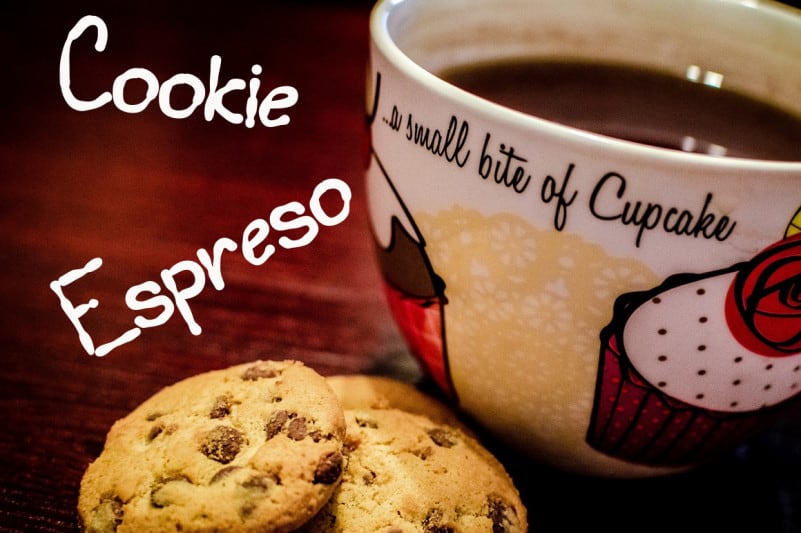
Chocholate Display Font
Chocholate Display Font is a cool and trendy display font. No matter the topic, this font will be an incredibly asset to your fonts’ library, as it has the potential to elevate any creation.
Chocholate Display Font is a very talented product for you to use,
Latest letters that can be used for various products, invitations, wall hangings, weddings, and more.